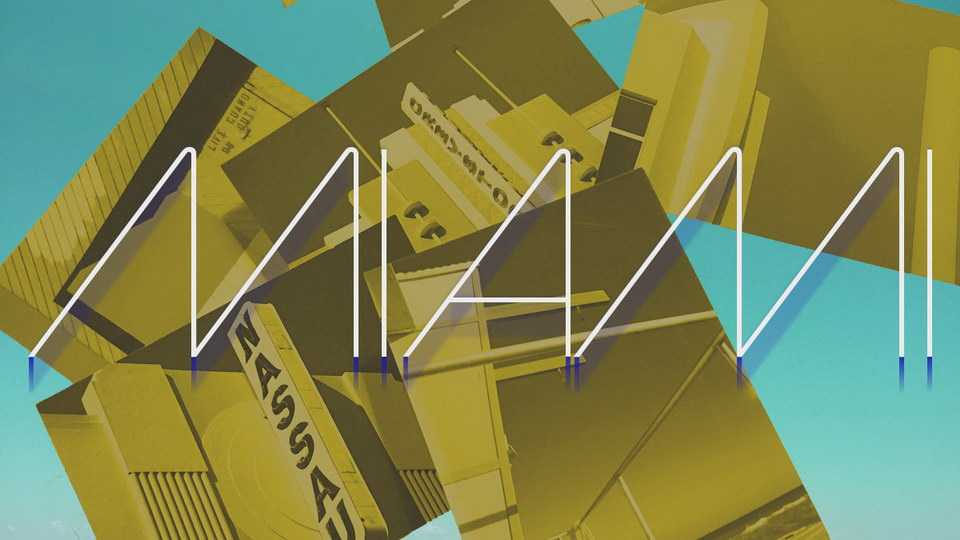
Download Miami font, a typeface inspired by the city and its unique style. The thin white lines reflect a culture, attitude and identity that endures – a relic of some glorious geometry, an unspeakable decor, riddled like the weather and the tides